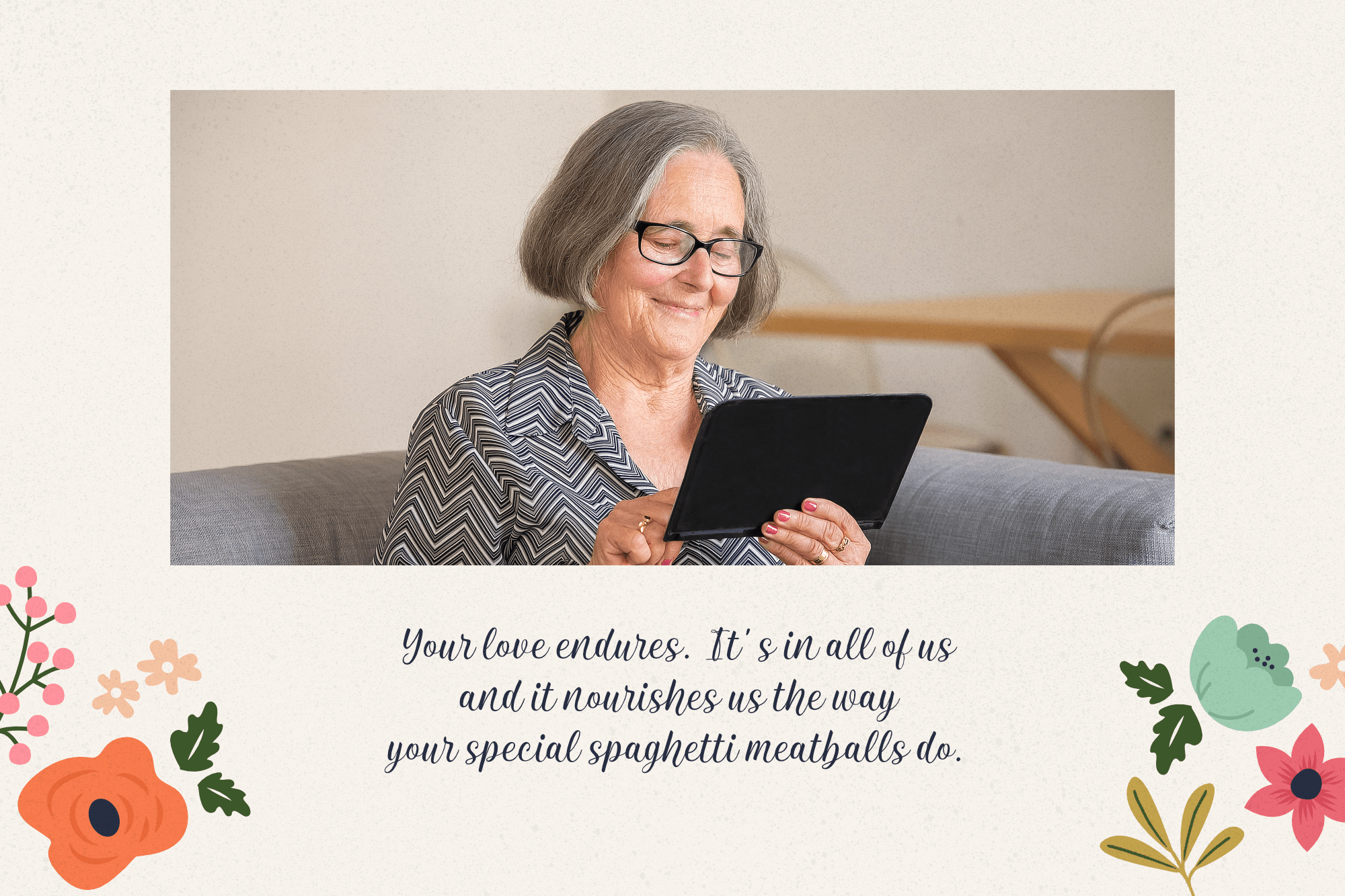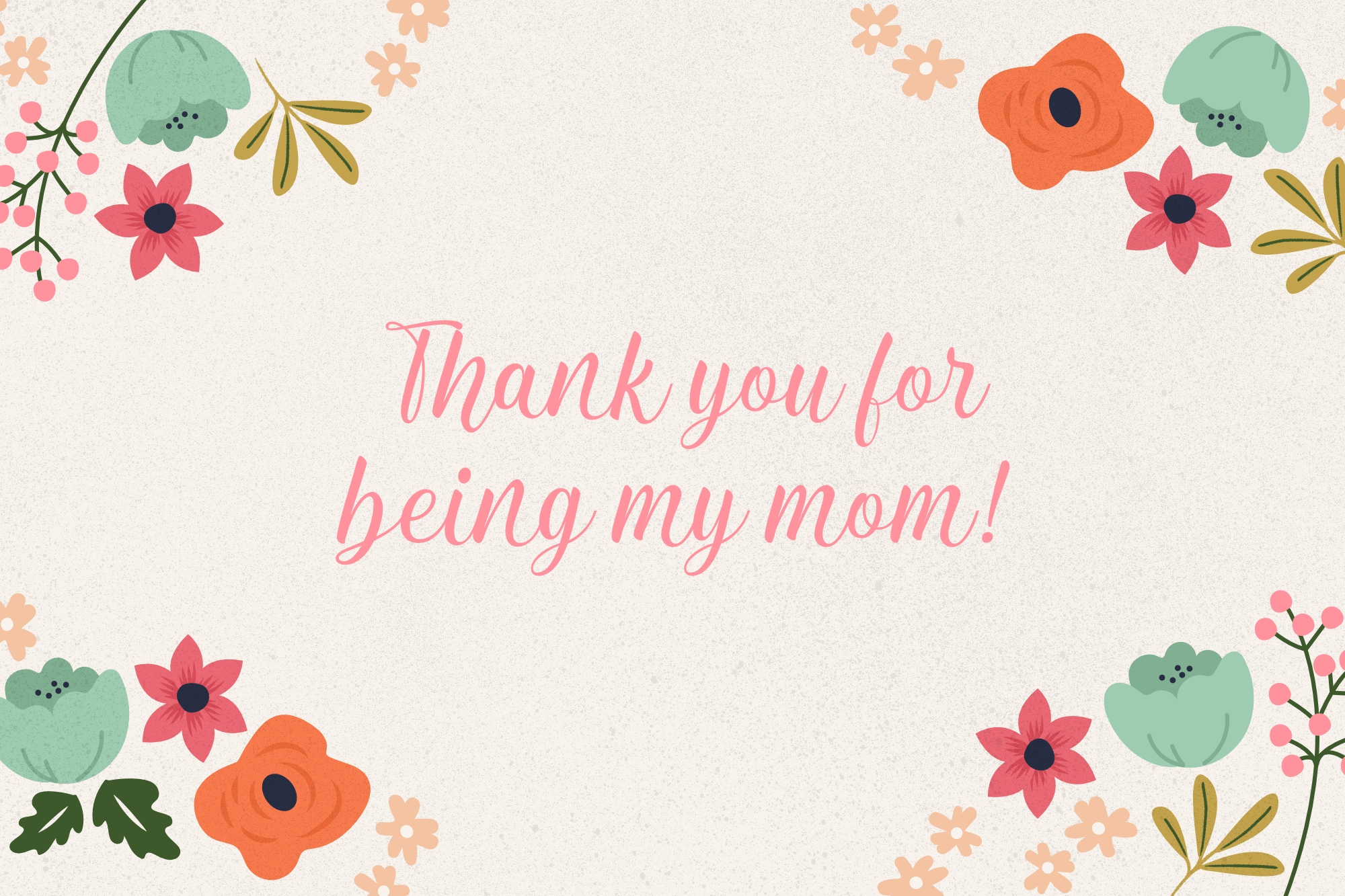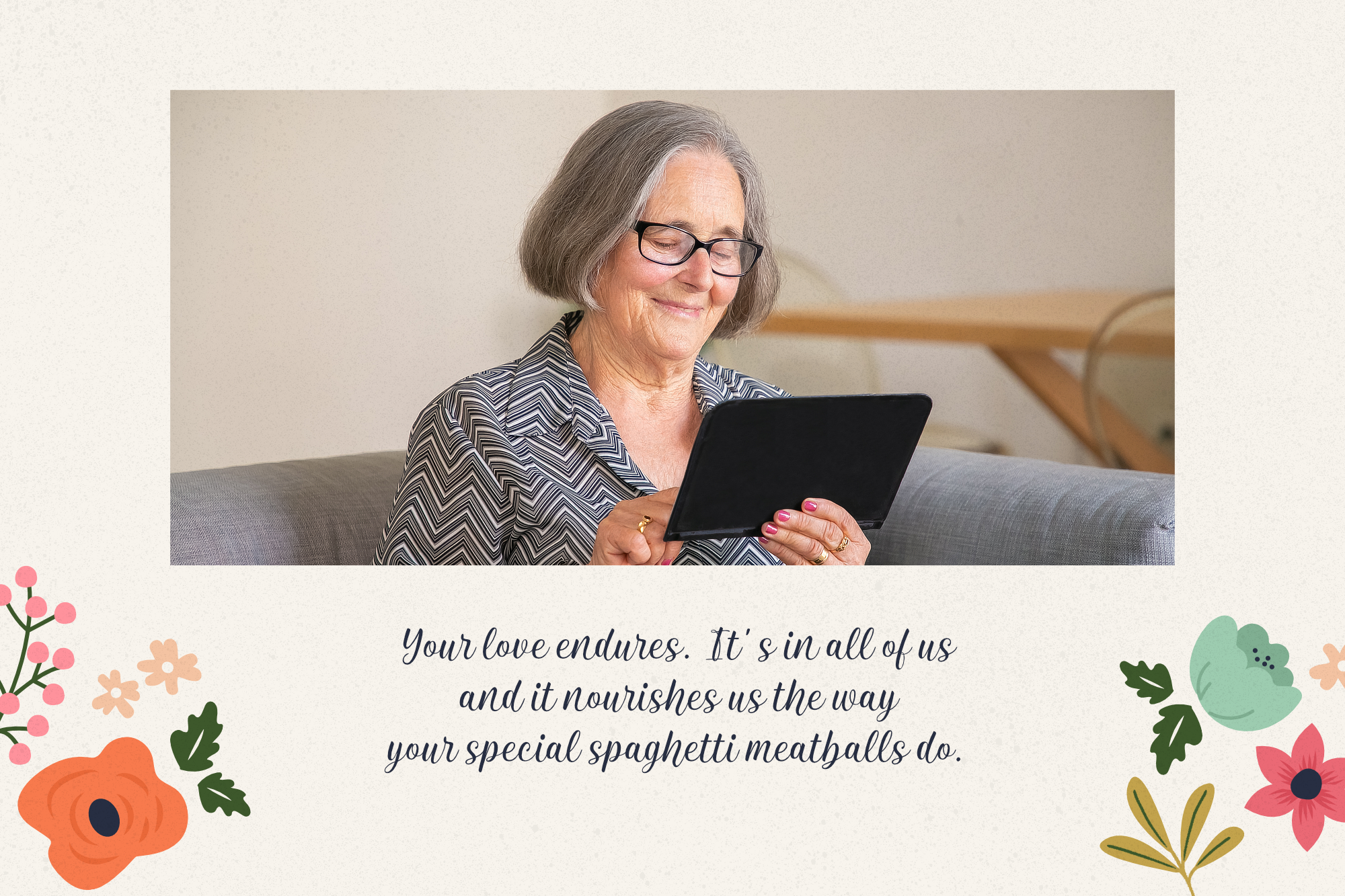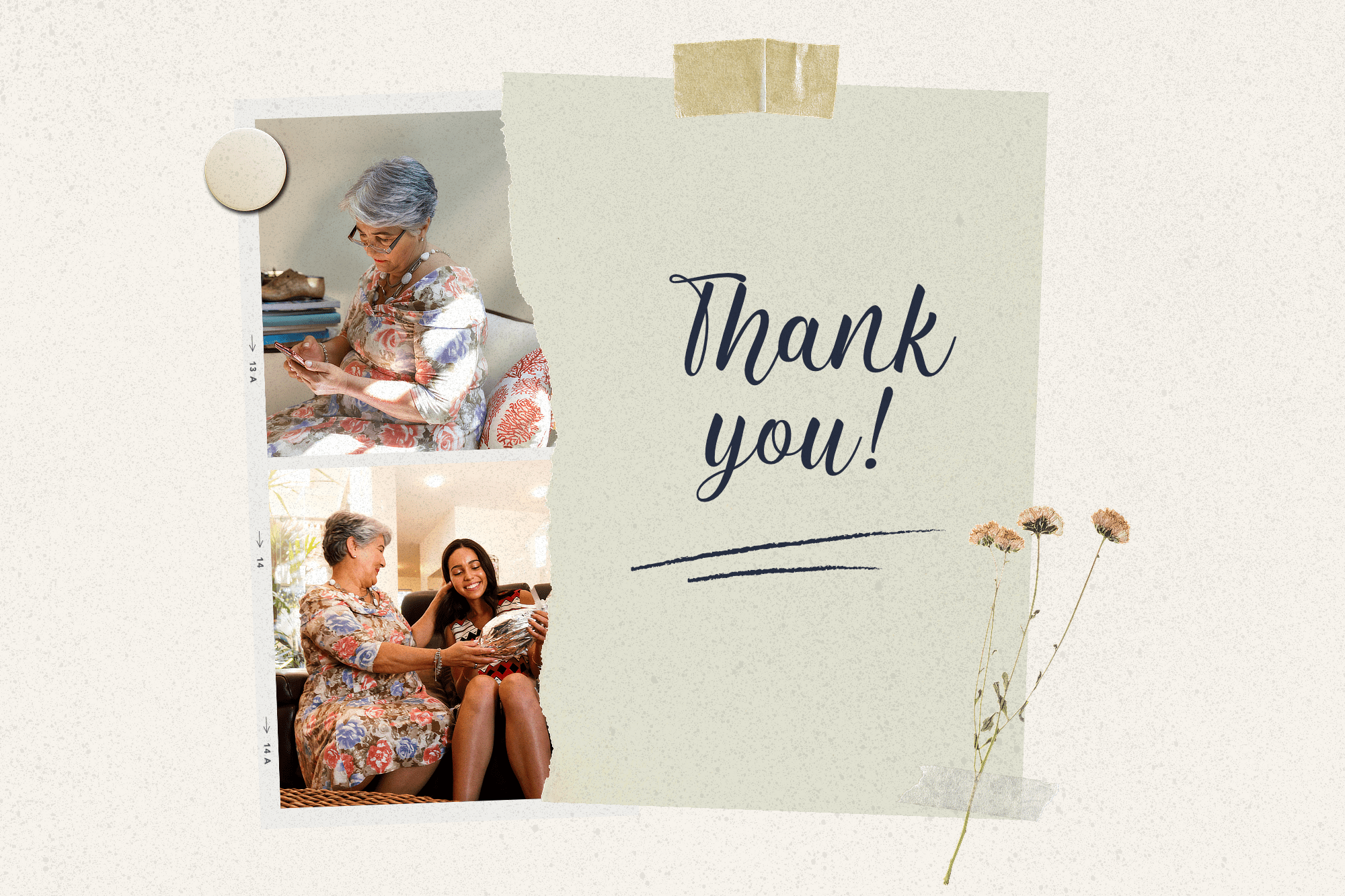
Granny Script Font
It’s a sweet and cursive handwritten font. This gentle font will look gorgeous on a variety of design ideas. It will add a joyful and romantic touch to each of your projects!